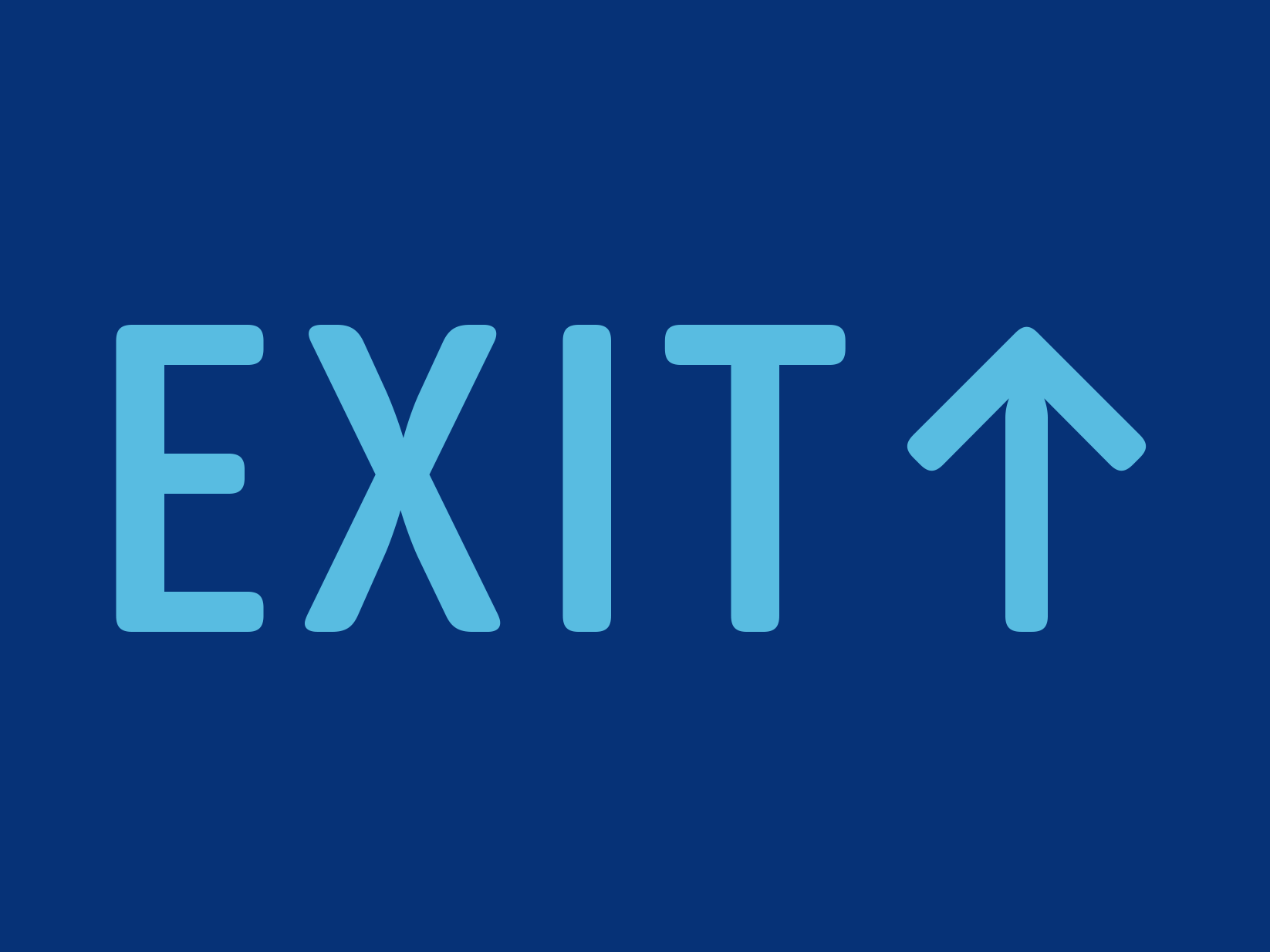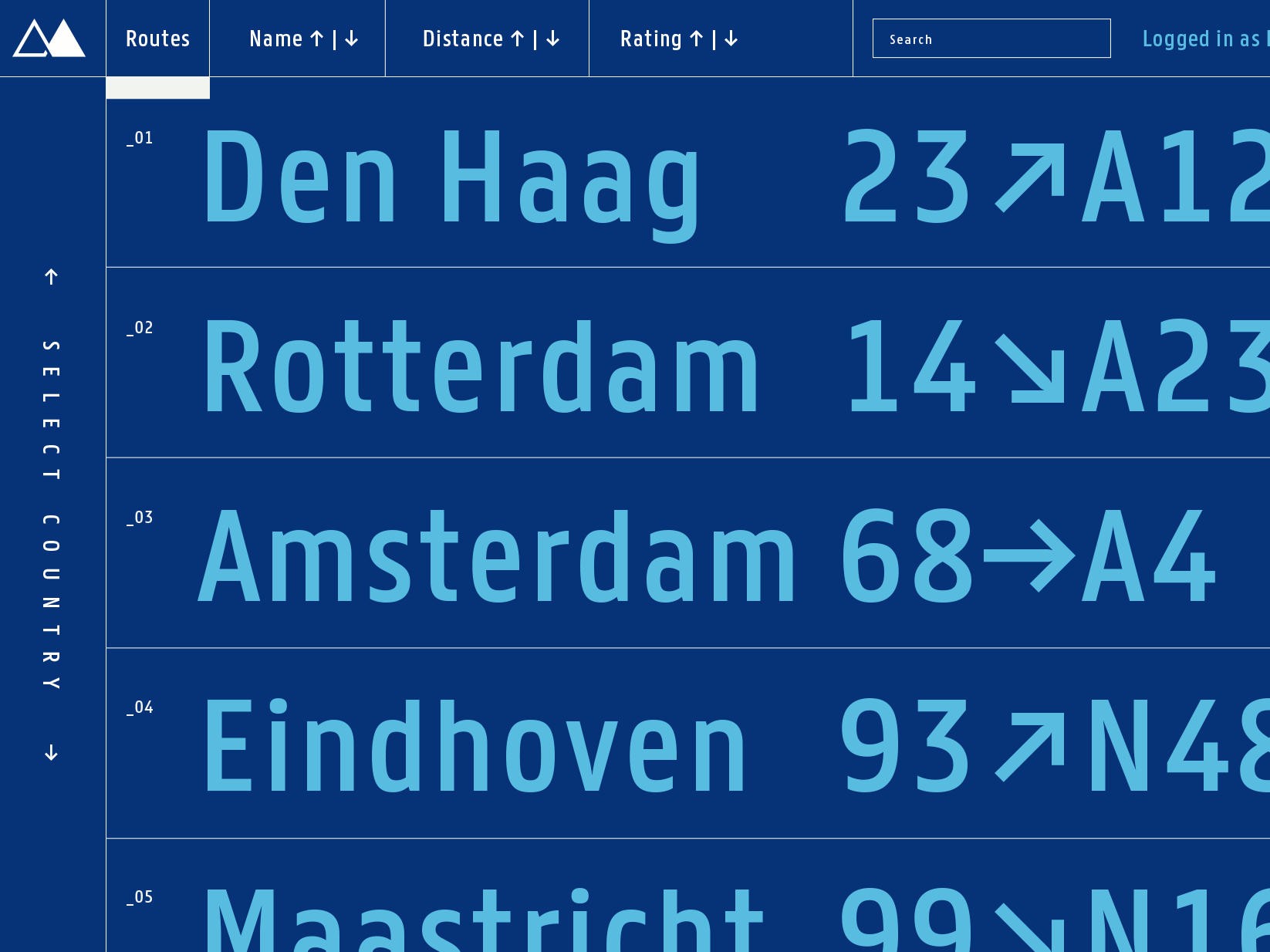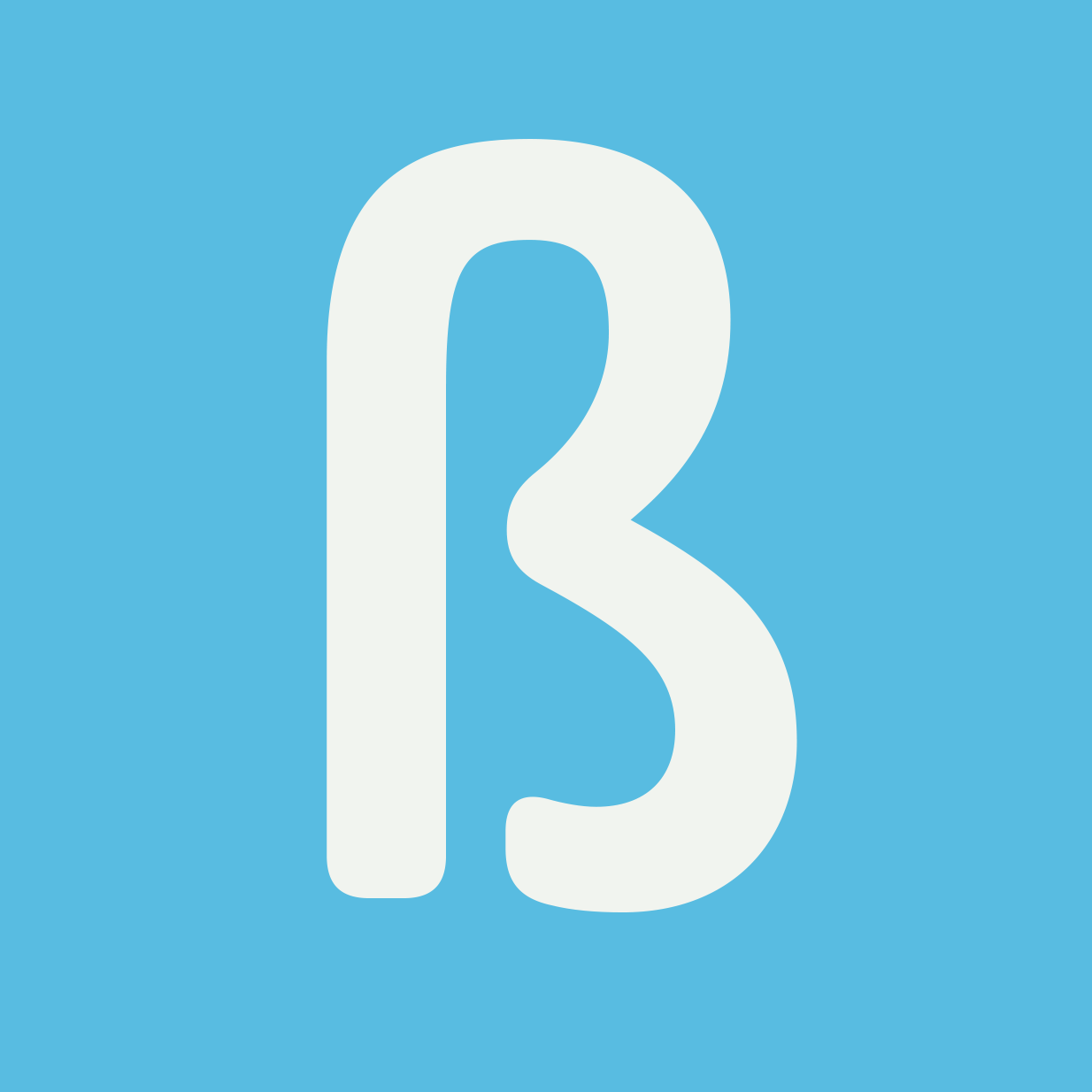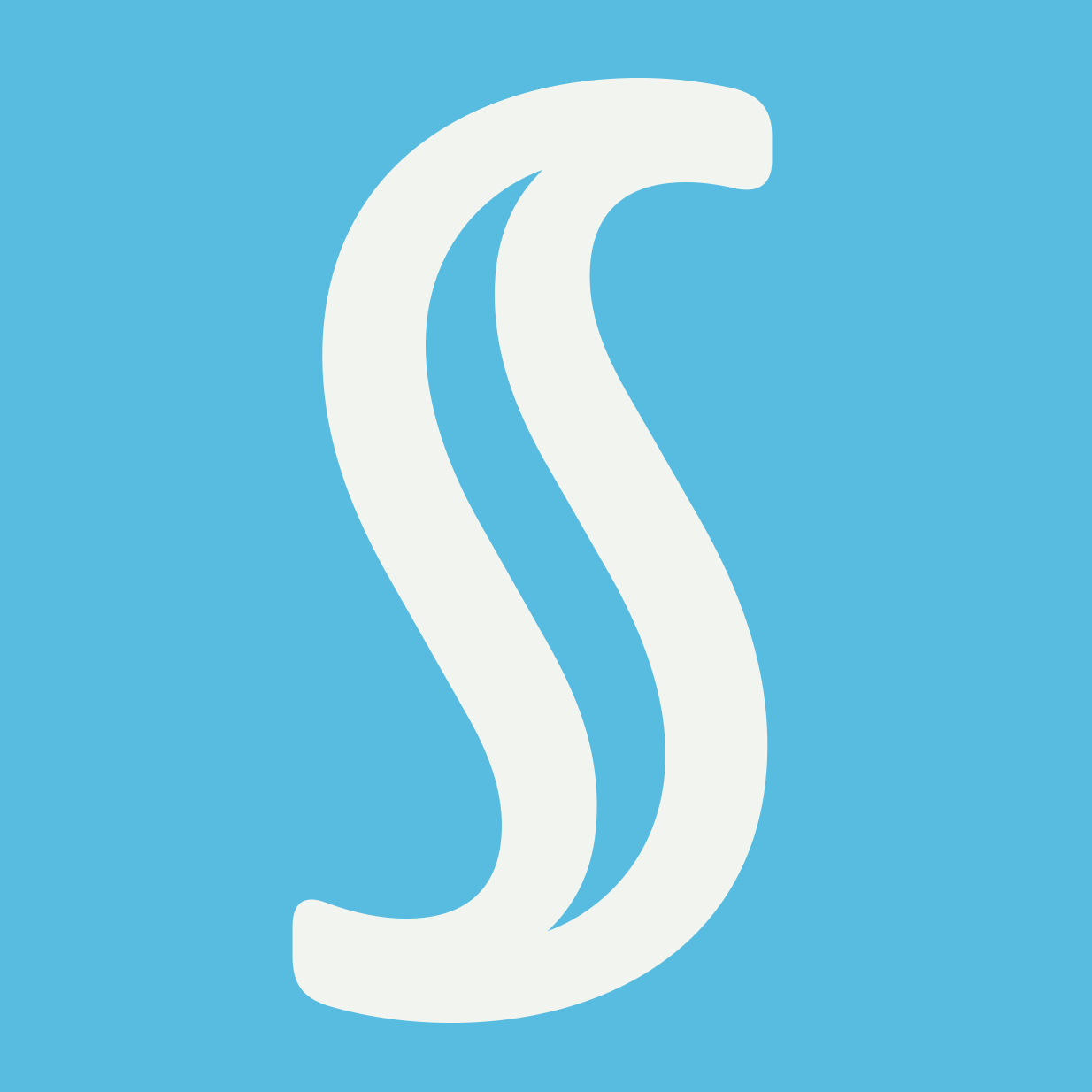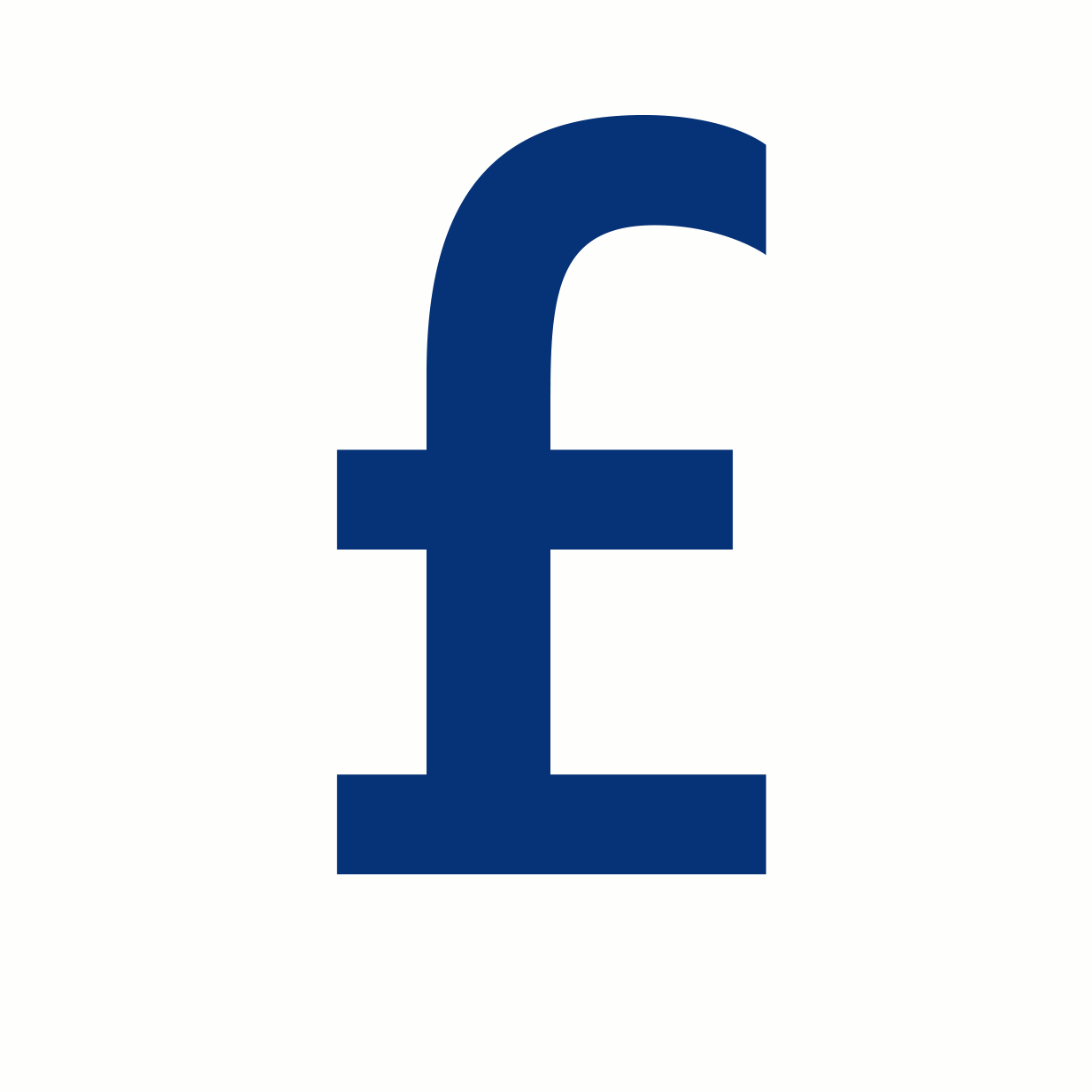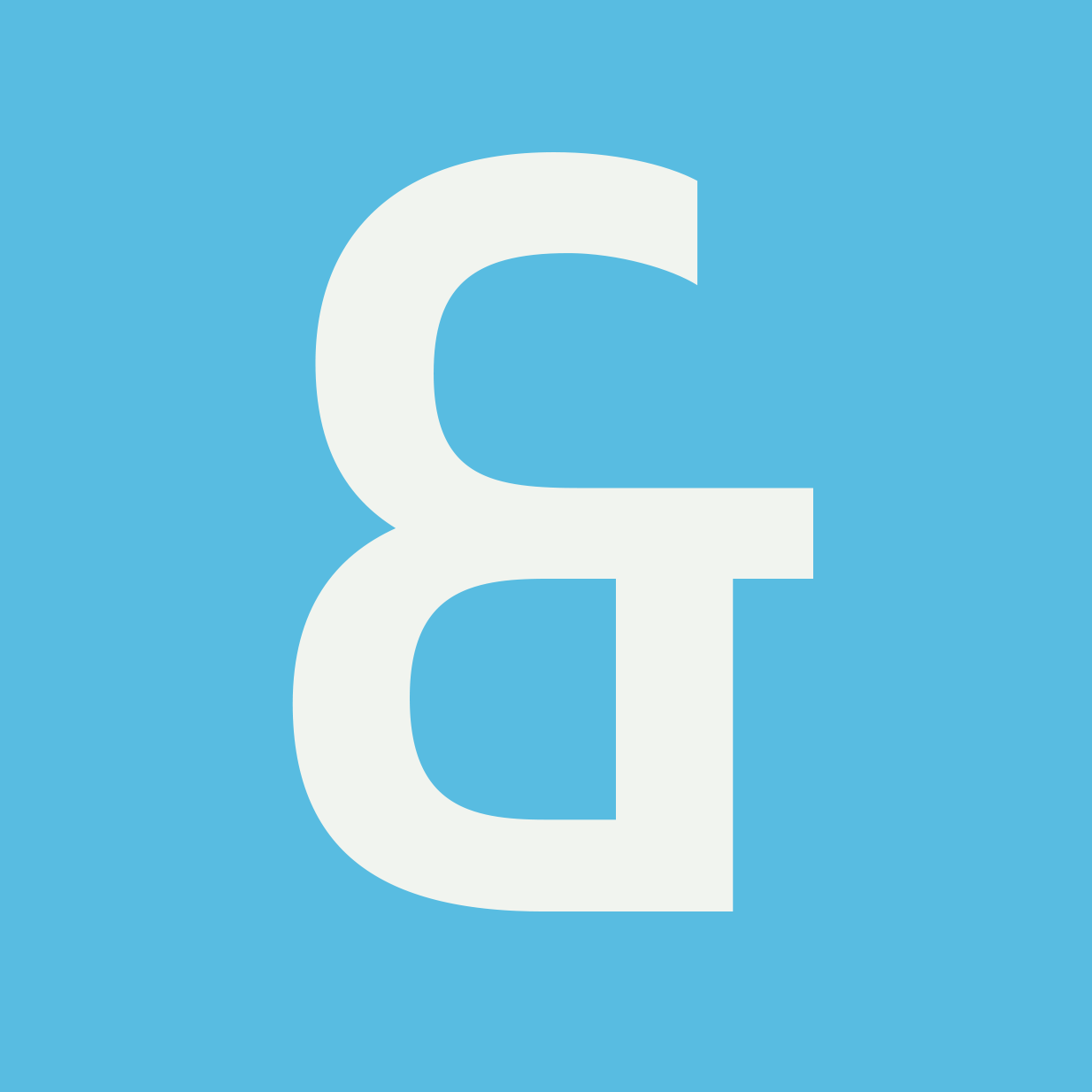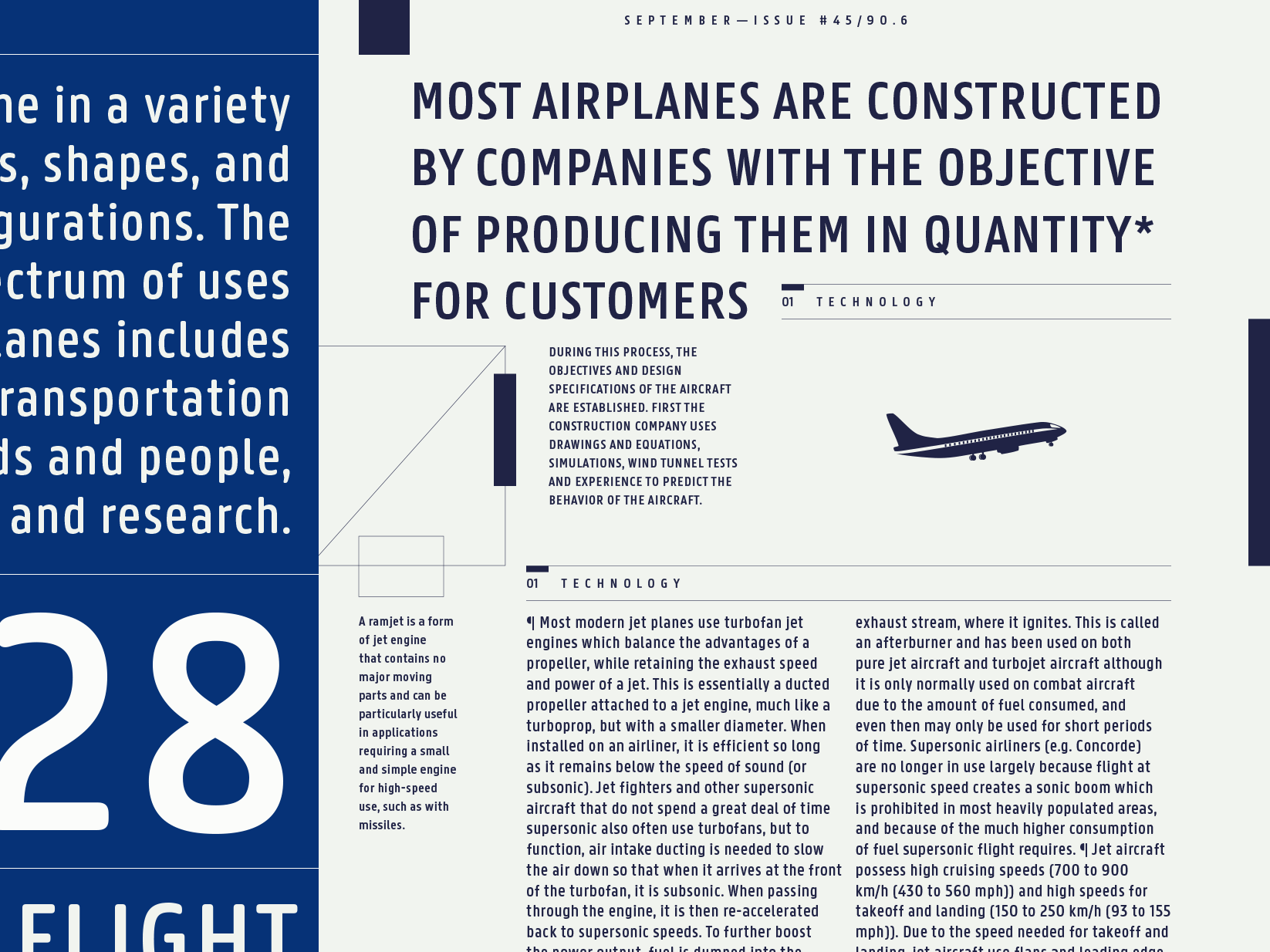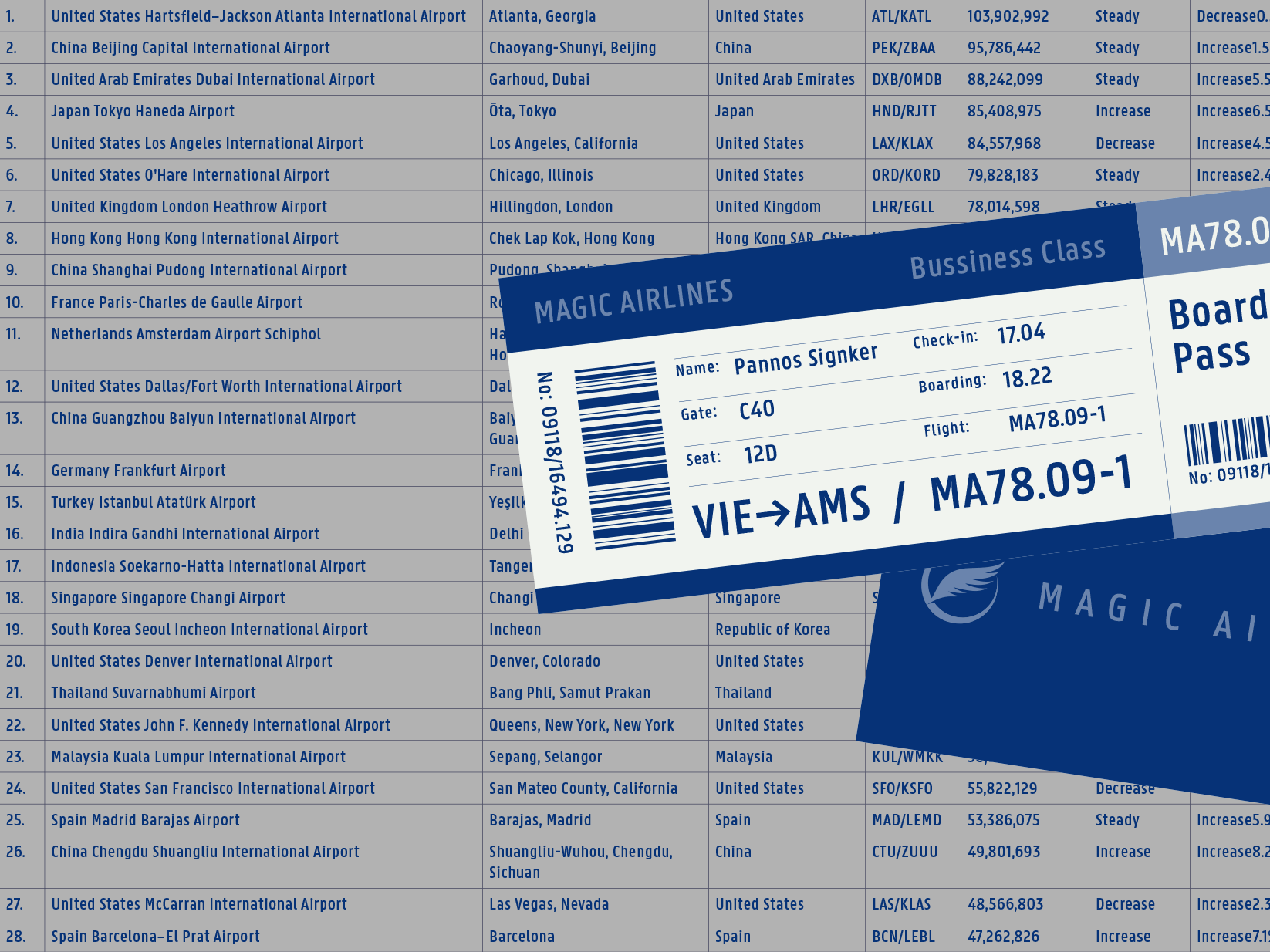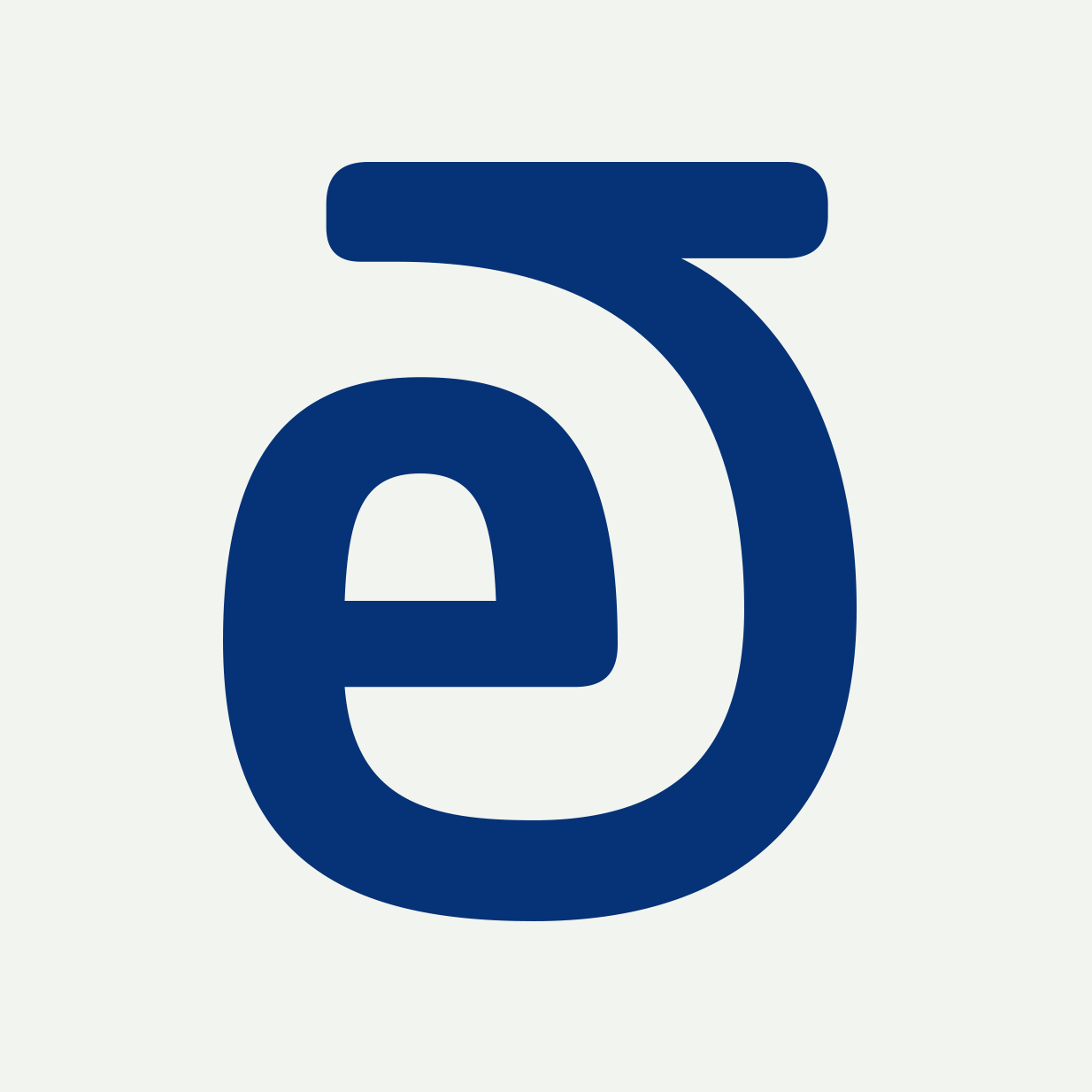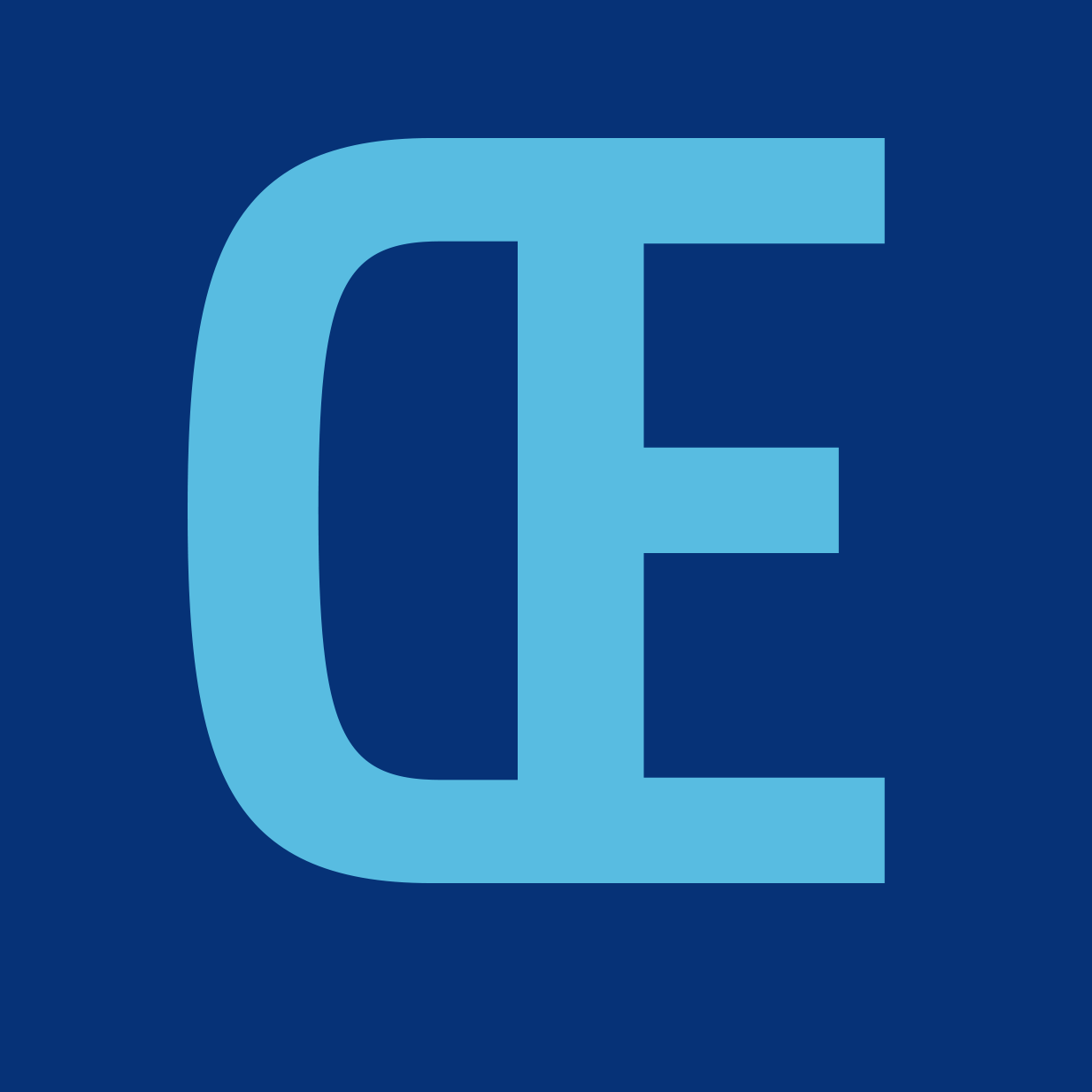
Panno Sign
Panno Sign is a typeface optimized for signage and developed for the romanisation of street names in South Korea. Since these signs can contain up to three different notations for one name (in Korean, Chinese and Latin) one of the main challenges was saving space whilst maintaining optimal legibility. To achieve this, Panno has narrow proportions, a very large x-height, and especially open counters. The letterforms are simple and robust with only minimal stroke contrast. Panno brings optimal functionality with a bit of fresh, warm air onto signs where traditional wayfinding typefaces like DIN may feel too constructed or cold.
Panno Sign is available in two variants — Normal and Rounded — each in two styles for negative and positive applications to achieve the same optical weight.
Panno Sign comes with an extended Latin character-set and several OpenType features that give access to fractions, different styles of numerals, and stylistic alternates for ‘a’, ‘g’ and ‘&’. For other applications than signage there is also Panno Text.